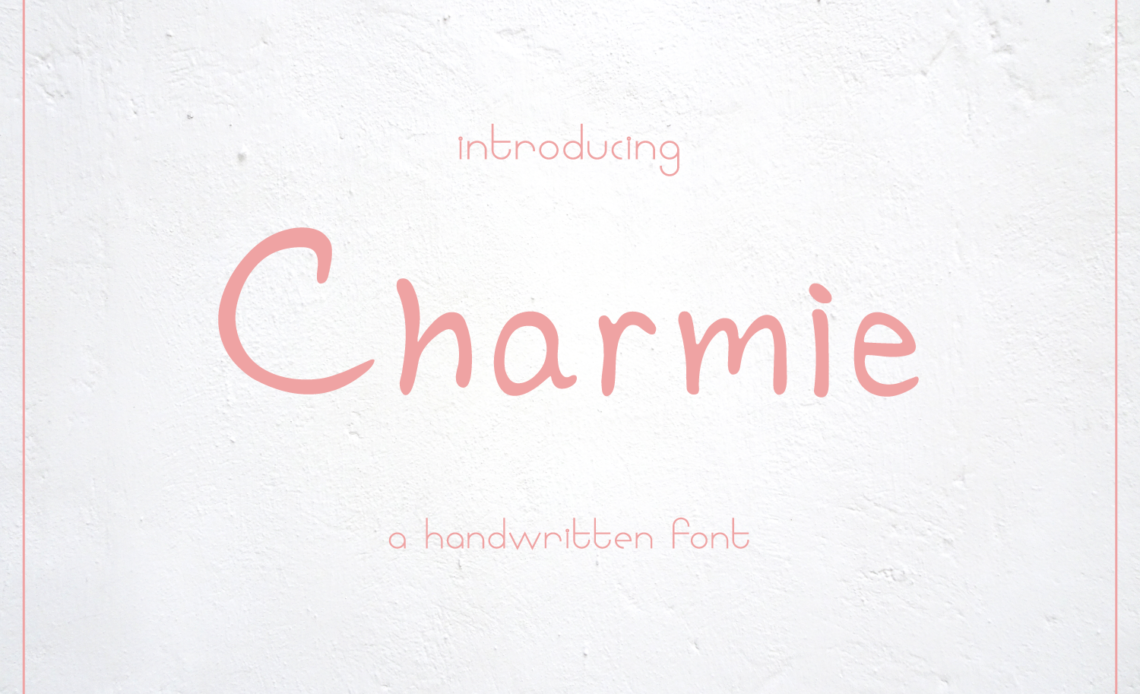
Feel the charm and elegance of every letter as you embark on a typographic journey with the Charmie Font. This exquisite script font, crafted with utmost care by White Supply, is a masterpiece that will add a touch of refined beauty to your creative endeavors.
Indulge in the delightful dance of the Charmie Font's curves and flourishes, reminiscent of a skilled calligrapher's hand. Each character exudes a sense of grace and sophistication, capturing the essence of timeless elegance. Experience the seamless flow of words and phrases as they come to life, leaving an imprint of artistry on your designs.
With its inherent versatility, Charmie Font adapts effortlessly to a myriad of design projects. Whether you're crafting enchanting invitations, adding a touch of whimsy to marketing materials, or designing heartfelt greetings, this font becomes an extension of your creative vision. Its subtle elegance adds a touch of charm to logos, branding elements, and web designs, elevating your creations beyond the ordinary.
Charmie Font is not just a collection of letters and symbols; it's an expression of creativity that knows no bounds. Its elegant charm draws the eye, inviting viewers to immerse themselves in the story your designs tell. Let Charmie Font become your artistic muse, guiding you towards creations that captivate and inspire.
Join the journey of artistic expression with Charmie Font today, and unlock the boundless possibilities of typographic beauty. Experience the joy of crafting designs that radiate elegance, charm, and timeless appeal.